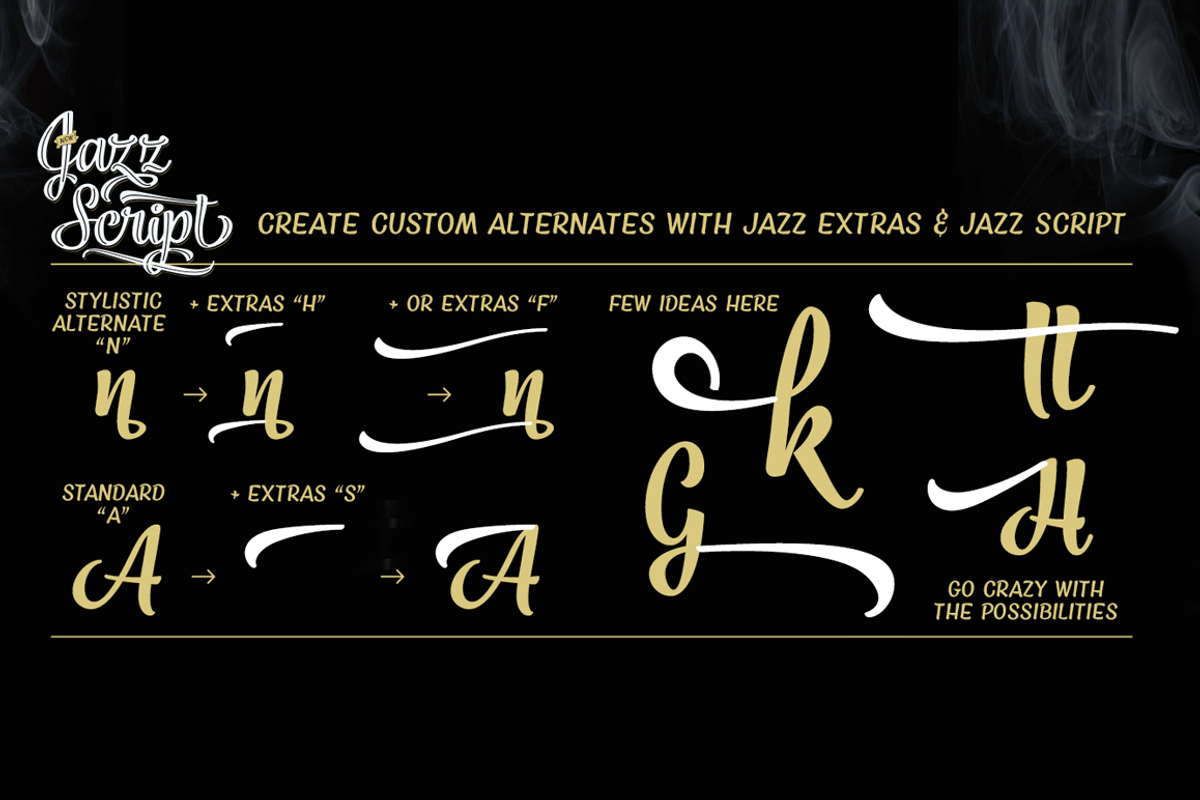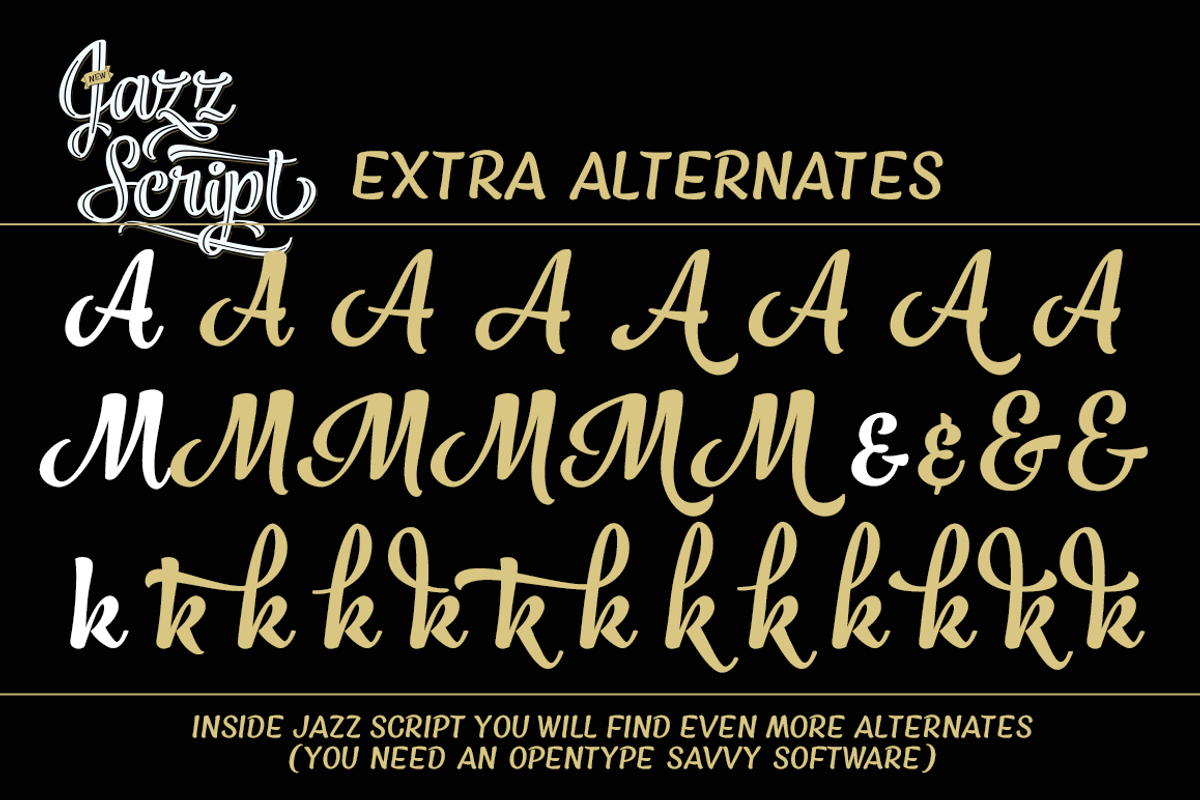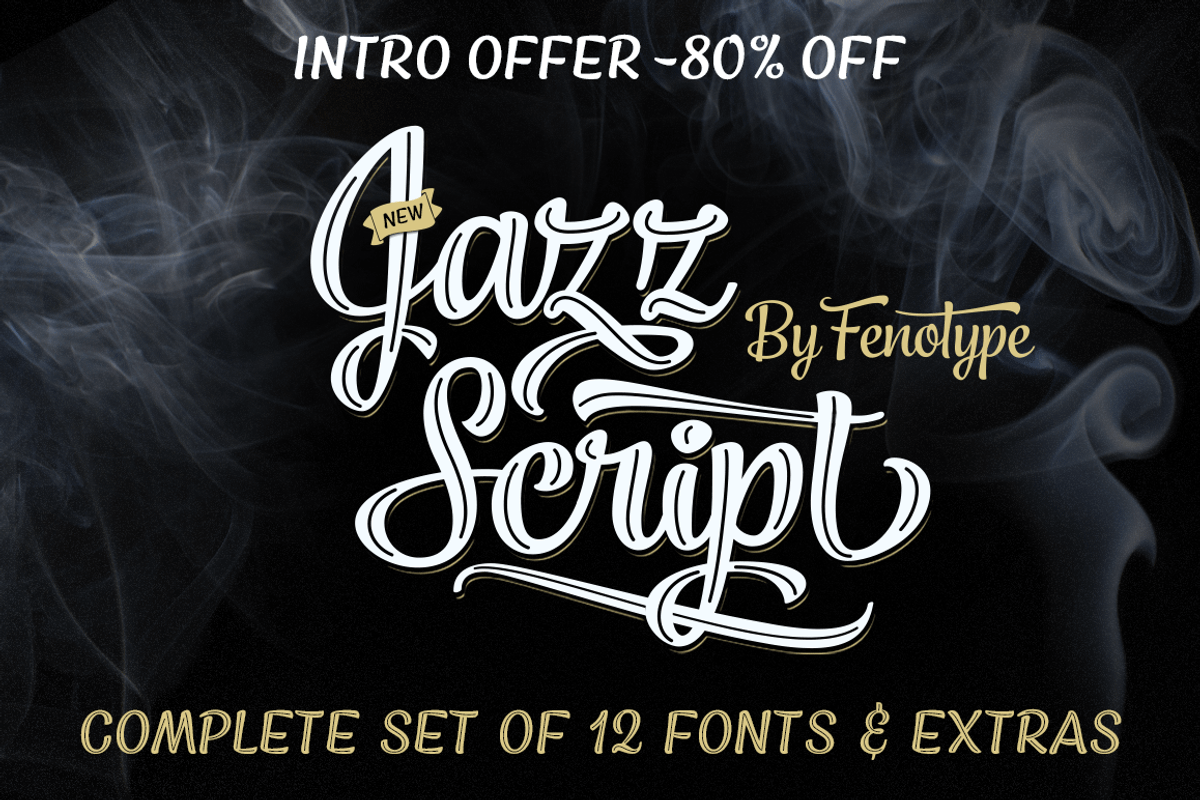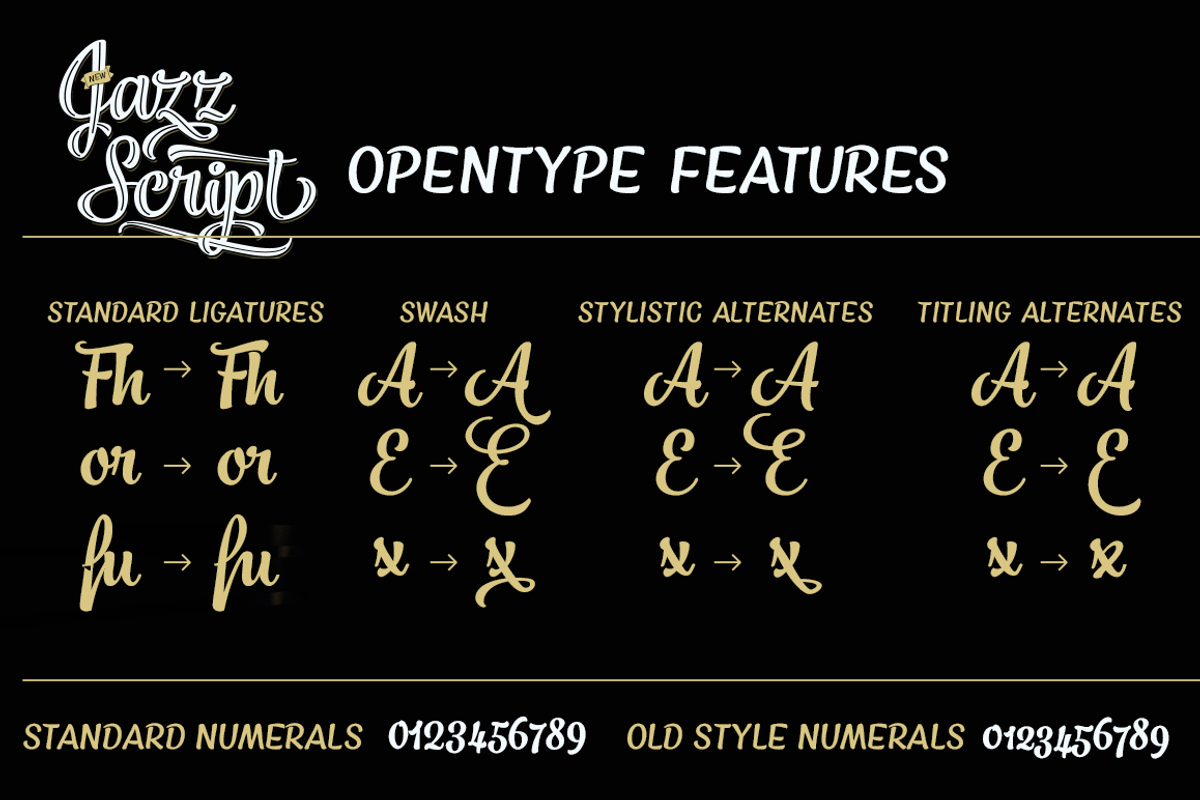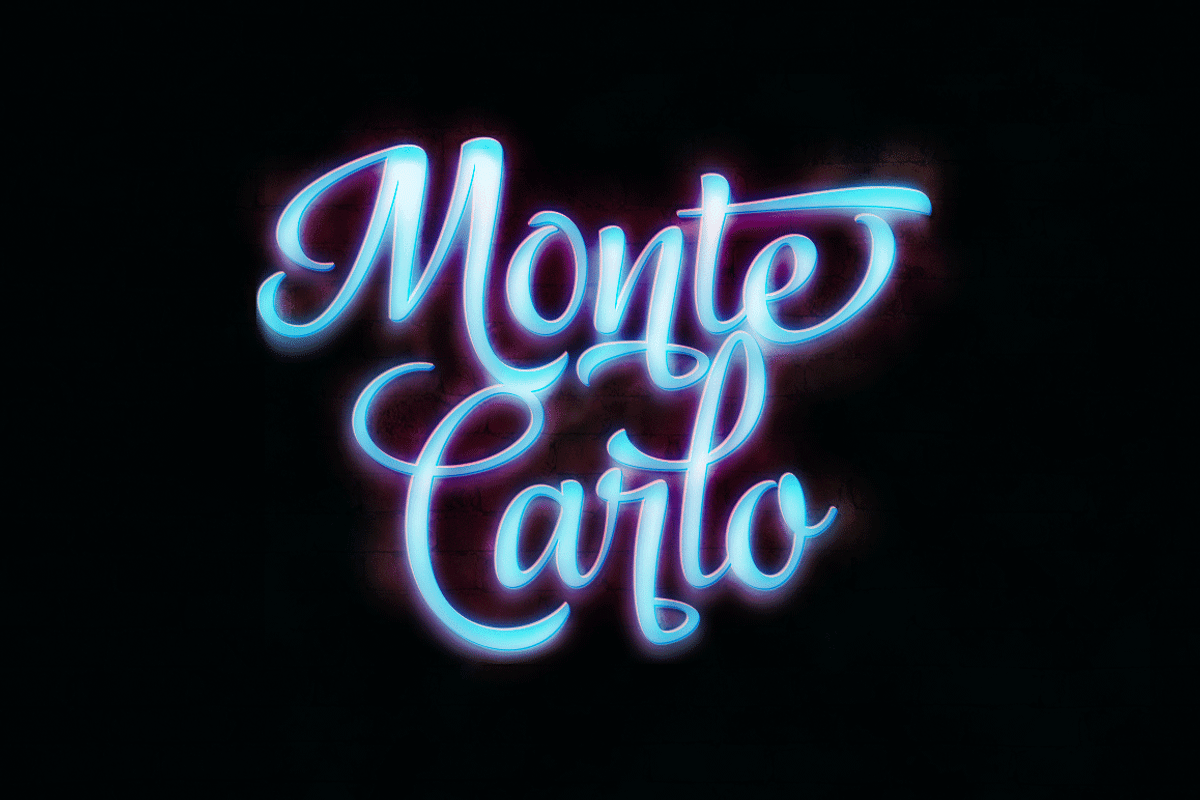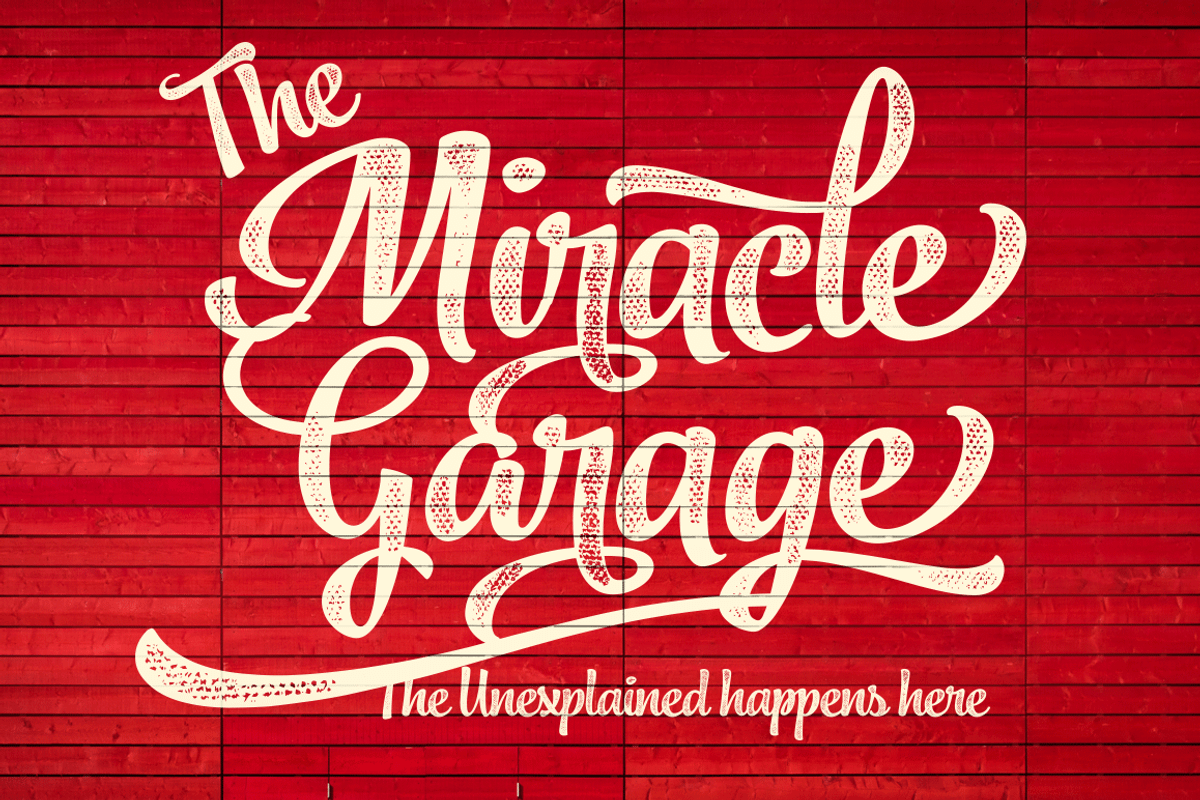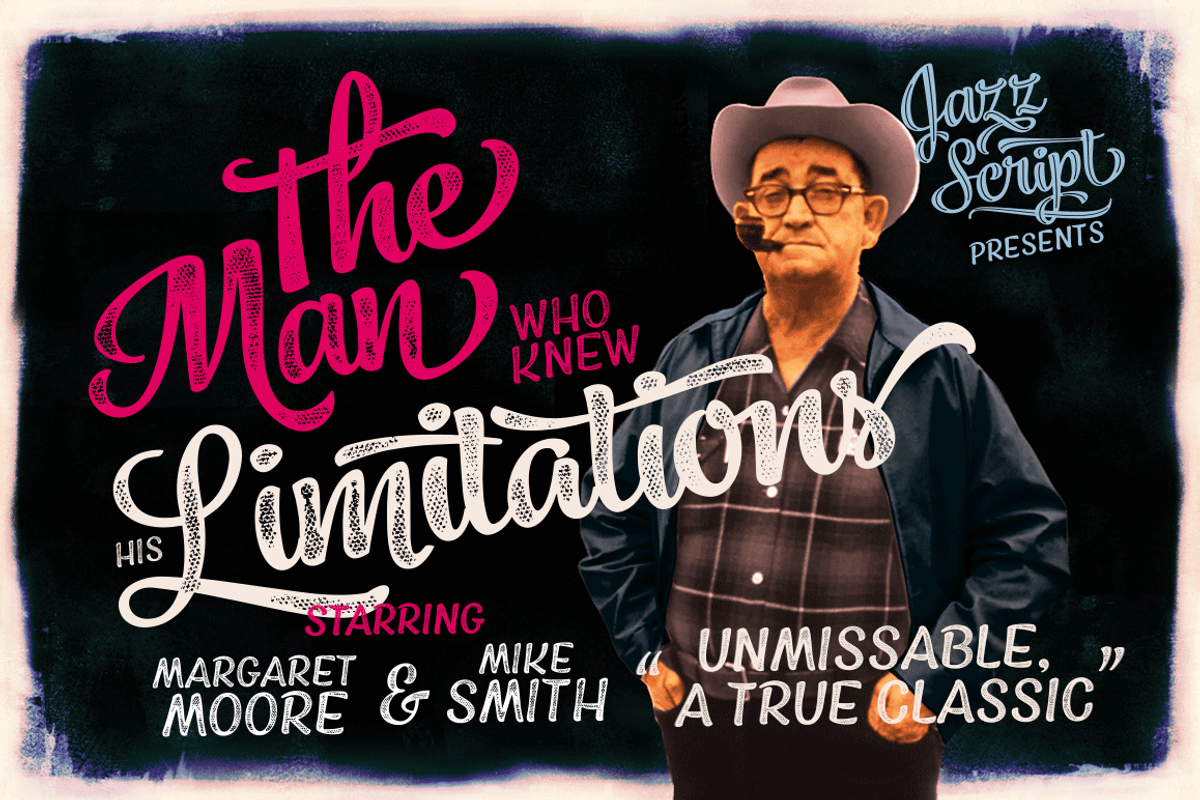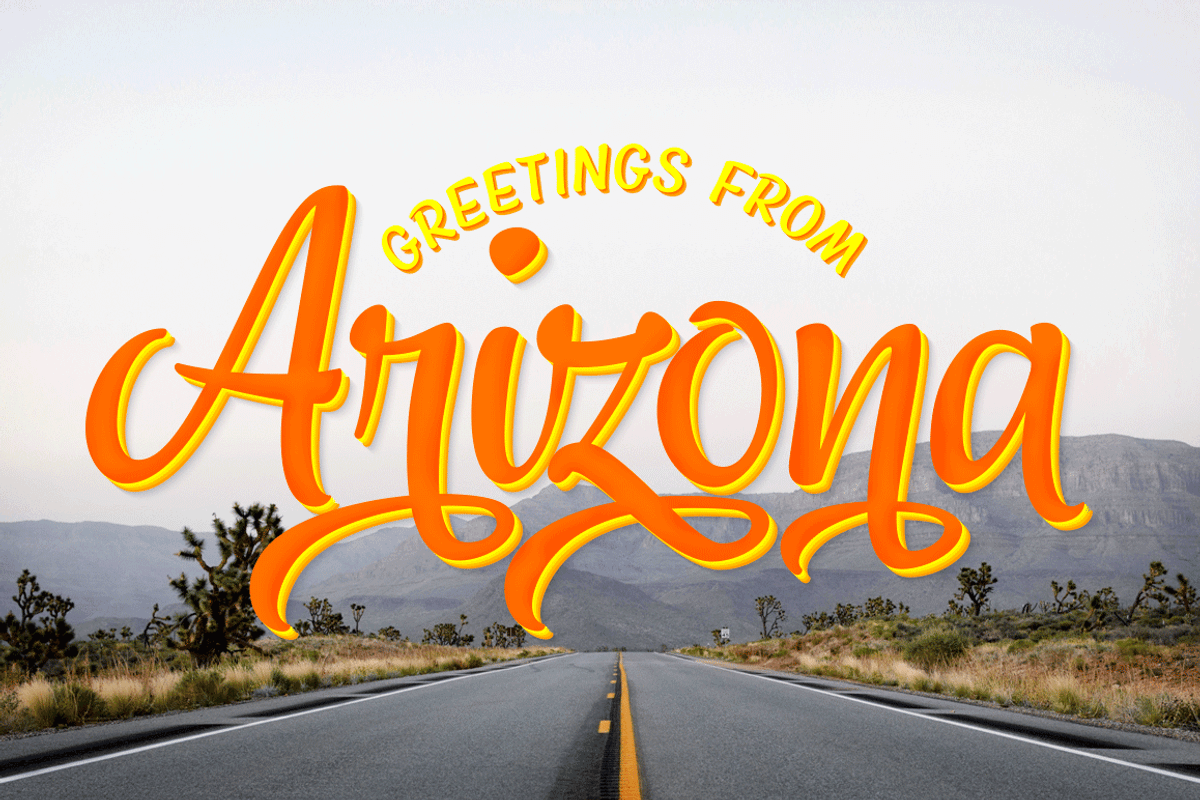
Jazz Script 12 fonts + extras -40% by Fenotype is a font selected for branding, posters, packaging, typography.
- Each Script version contains more than 750 glyphs and is equipped with several OpenType features to easy up your access for all the goodies:
- Jazz Script also has plenty of Automatic Ligatures that keep the text flowing and then there’s Proportional Oldstyle for more bouncy numeral
Jazz Script 12 fonts + extras -40% by Fenotype fits naturally into Branding, posters, packaging, typography.